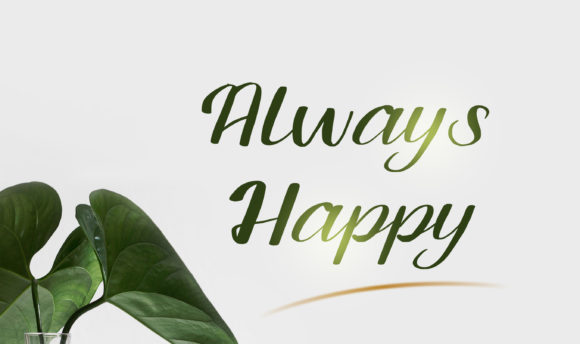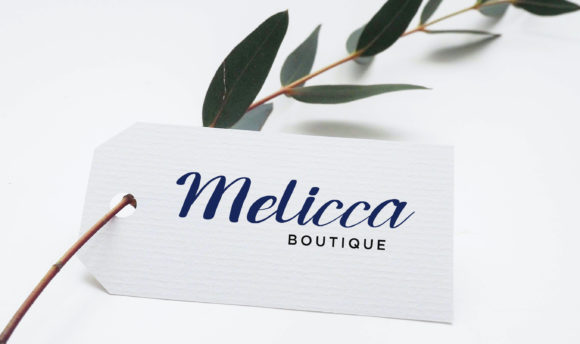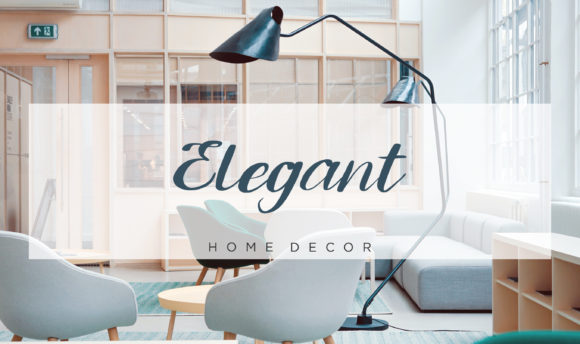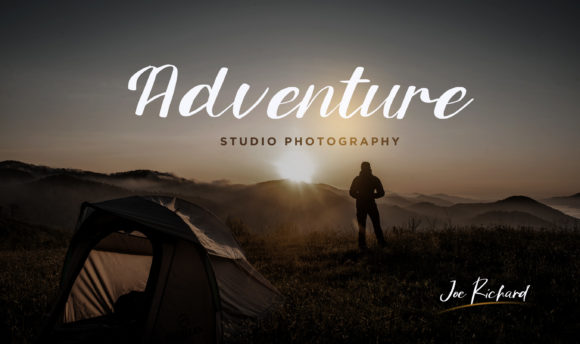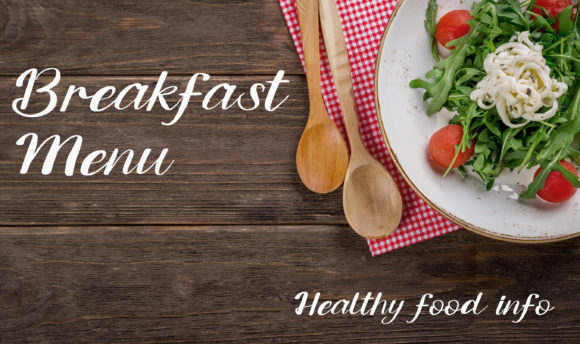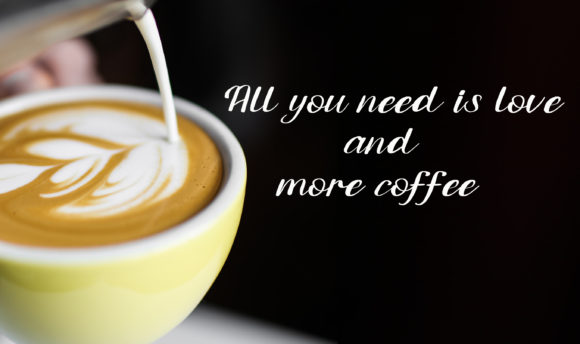
Introducing Directions Font: A Beautiful Cursive Handwritten Font for Creative Projects
Are you a designer, crafter, or DIY enthusiast looking for a unique and elegant font to elevate your creative projects? Look no further than Directions Font, a stunning cursive handwritten font that is perfect for a wide range of applications. In this article, we’ll explore the features and benefits of Directions Font, and show you how it can be used to add a touch of sophistication and style to your designs.
What is Directions Font?
Directions Font is a beautiful, cursive handwritten font that is designed to be versatile and easy to use. Its elegant and flowing script makes it perfect for a variety of creative projects, from logos and wedding invitations to headings, t-shirts, and more. With its PUA (Private Use Area) encoding, Directions Font gives you access to a wide range of glyphs and swashes, allowing you to customize your designs with ease.
Key Features of Directions Font
• Beautiful Cursive Script: Directions Font features a stunning cursive script that is both elegant and easy to read.
• PUA Encoded: With PUA encoding, you can access all of the glyphs and swashes with ease, giving you maximum flexibility and creative control.
• Versatile: Directions Font can be used for a wide range of creative projects, from logos and branding to wedding invitations, headings, and more.
• Easy to Use: Directions Font is designed to be easy to use, even for those with limited design experience.
Uses for Directions Font
Directions Font is a versatile font that can be used for a wide range of creative projects, including:
• Logos and Branding: Use Directions Font to create a unique and memorable logo for your business or brand.
• Wedding Invitations: Add a touch of elegance and sophistication to your wedding invitations with Directions Font.
• Headings and Titles: Use Directions Font to create beautiful headings and titles for your blog posts, articles, and other written content.
• T-Shirts and Merchandise: Directions Font is perfect for creating custom t-shirts, mugs, and other merchandise.
• Signage and Labels: Use Directions Font to create eye-catching signage and labels for your business or event.
• Posters and Badges: Directions Font is great for creating posters, badges, and other promotional materials.
Benefits of Using Directions Font
There are many benefits to using Directions Font for your creative projects, including:
• Unique and Elegant Design: Directions Font features a unique and elegant design that will set your projects apart from the crowd.
• Highly Versatile: Directions Font can be used for a wide range of creative projects, making it a great addition to any designer’s toolkit.
• Easy to Use: Directions Font is designed to be easy to use, even for those with limited design experience.
• PUA Encoded: With PUA encoding, you can access all of the glyphs and swashes with ease, giving you maximum flexibility and creative control.
Directions Font is a beautiful, cursive handwritten font that is perfect for designers, crafters, and DIY enthusiasts looking to add a touch of elegance and sophistication to their creative projects. With its PUA encoding, versatile design, and ease of use, Directions Font is a great addition to any designer’s toolkit. Whether you’re creating logos, wedding invitations, headings, or merchandise, Directions Font is the perfect choice.